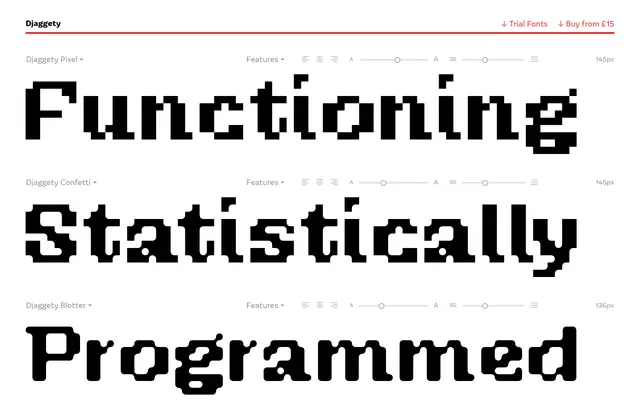
Djaggety
Typeland · Alessia Mazzarella · 2025
A pixelated, bitmap display family by Alessia Mazzarella comprising three distinct stylistic variants with variable axes.
Released in July 2025, the family splits across three styles — Pixel, Confetti and Blotter — each sharing a jagged, bitmap-derived aesthetic while offering its own character. All three styles include variable axes and OpenType features, and the family is supplied in OTF, TTF, WOFF and WOFF2 formats. Best suited to display-scale use in digital-native contexts where a raw, grid-locked quality is the point.
Djaggety is explicitly described as pixelated, bitmap and jagged in style, with three distinct stylistic variants; these characteristics place it firmly in the display category with a pixel/bitmap subcategory.